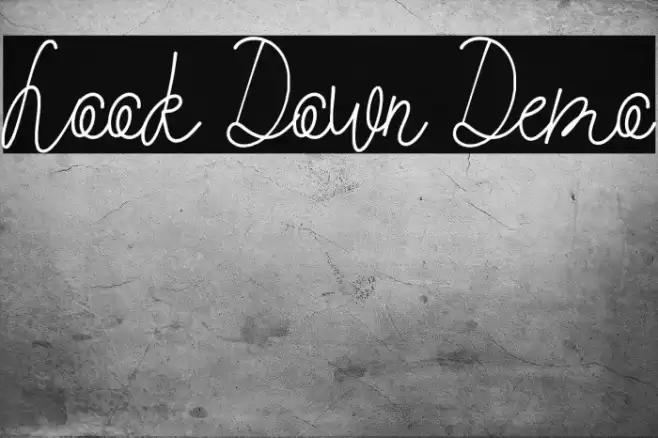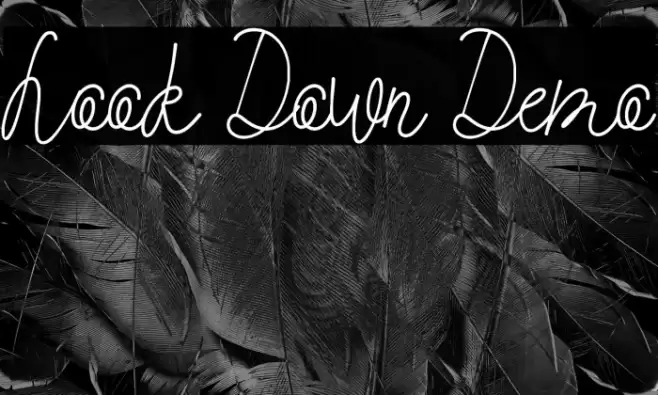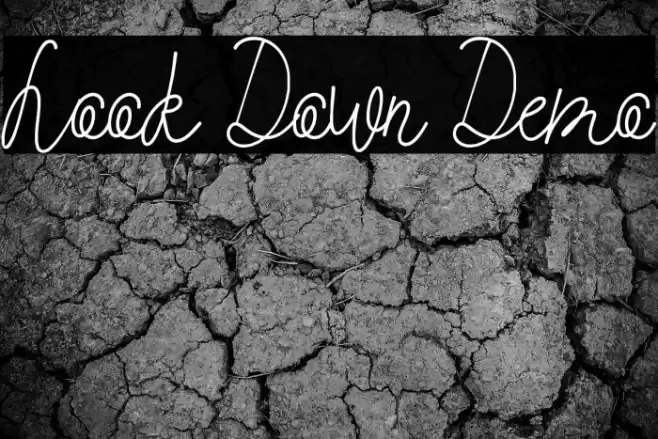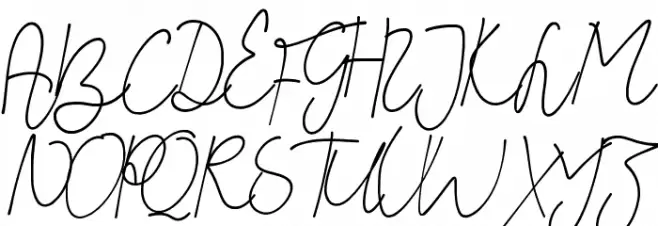
Look Down Demo Font
Look Down Demo Description
This font exhibits a fluid and elegant cursive style, characterized by its continuous, flowing strokes that mimic the natural motion of handwriting. The uppercase and lowercase letters are seamlessly connected, creating a harmonious and cohesive appearance. The strokes are thin and delicate, adding a sense of sophistication and grace. The font maintains a consistent slant, enhancing its dynamic and lively feel. The characters are well-proportioned, with a slight variation in height that adds to the organic nature of the design. This script font is both legible and stylish, making it suitable for a variety of creative applications.
A fluid and elegant cursive font with continuous, flowing strokes from Regular fonts.
- Proposed Projects: Ideal for wedding invitations, personal branding, greeting cards, and elegant packaging designs.
- Weight: Light
- Character Spacing: Tight
- Overall Style: Elegant
- Use Case: Logos, Invitations, Personal Branding